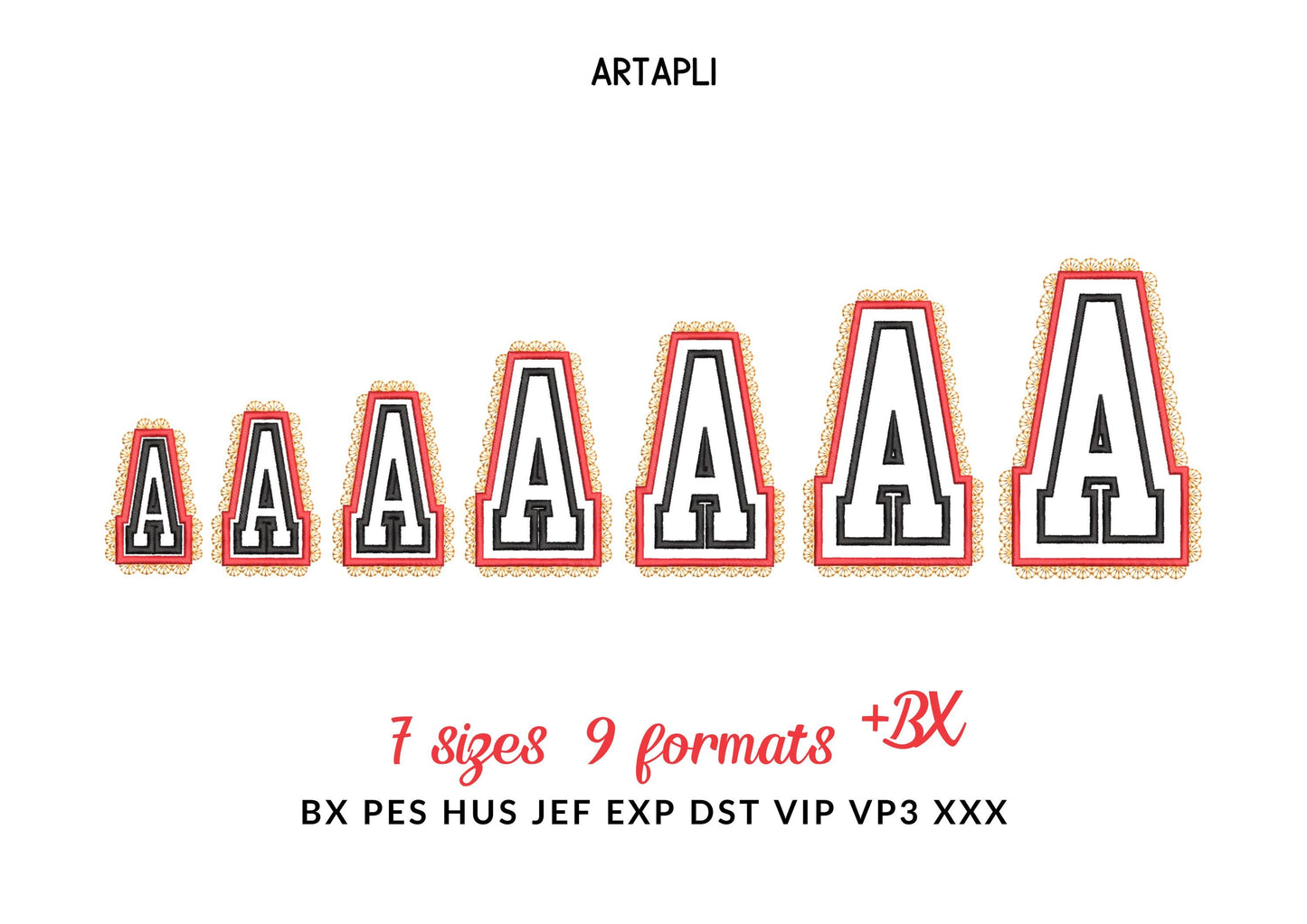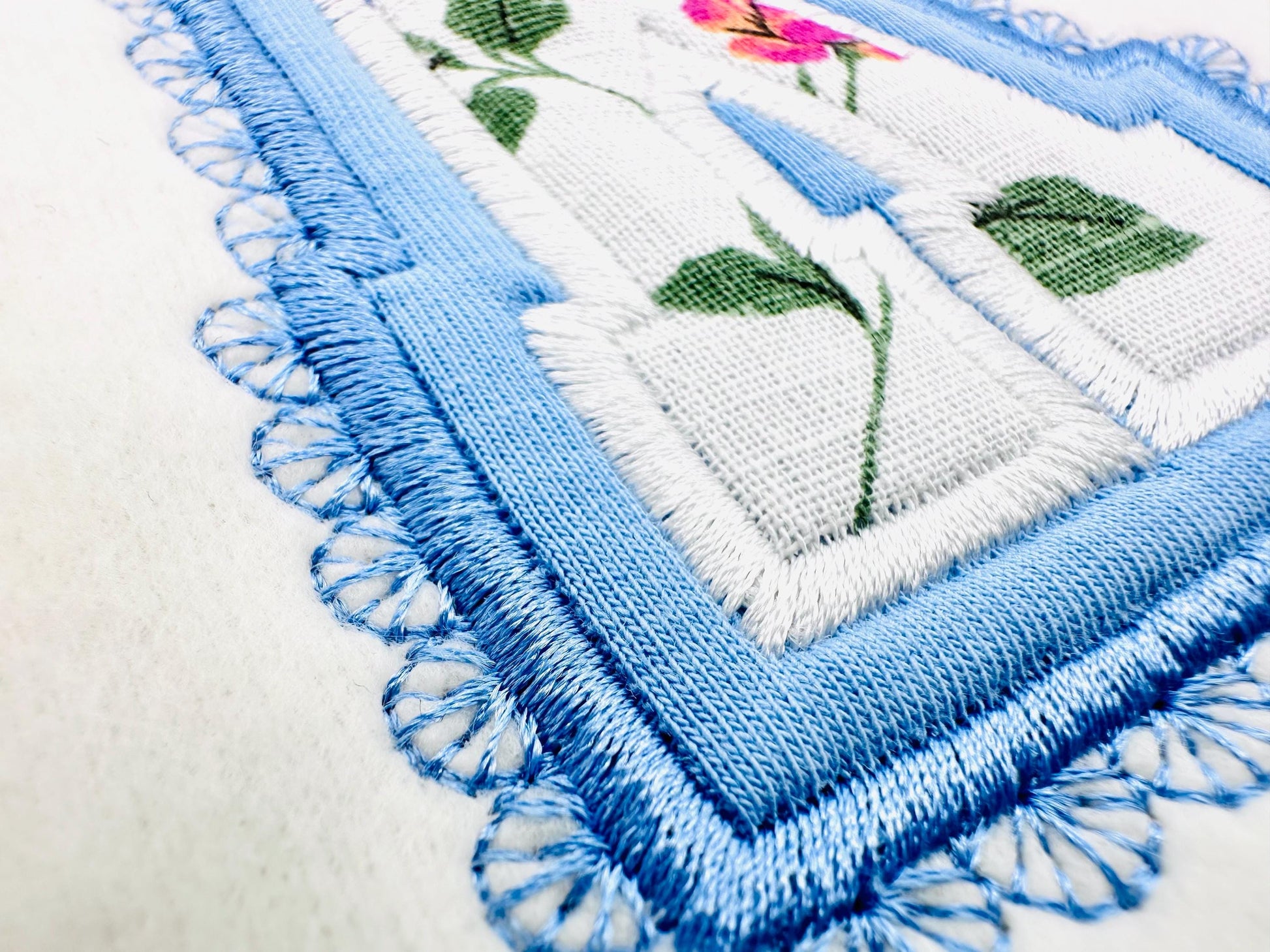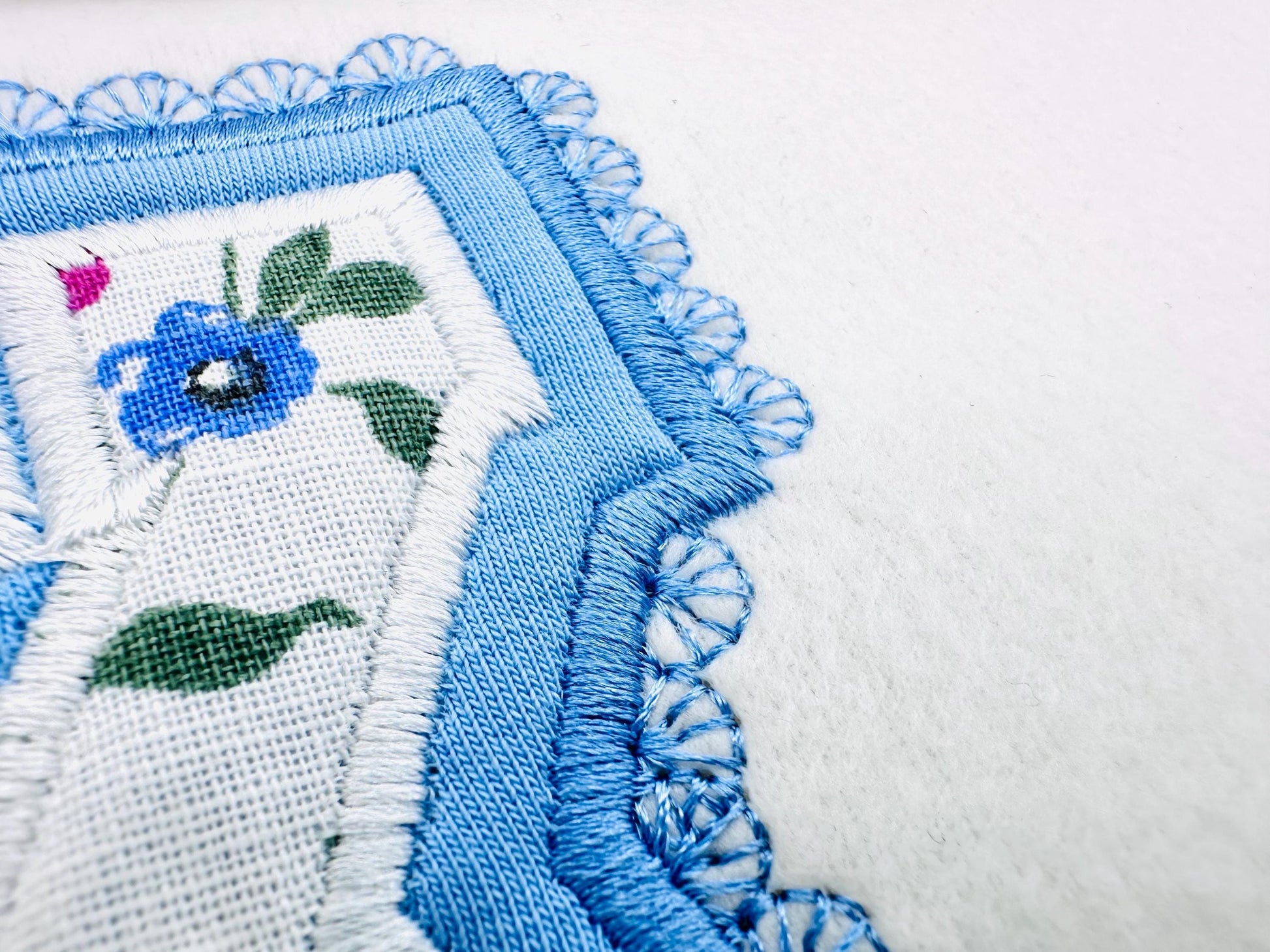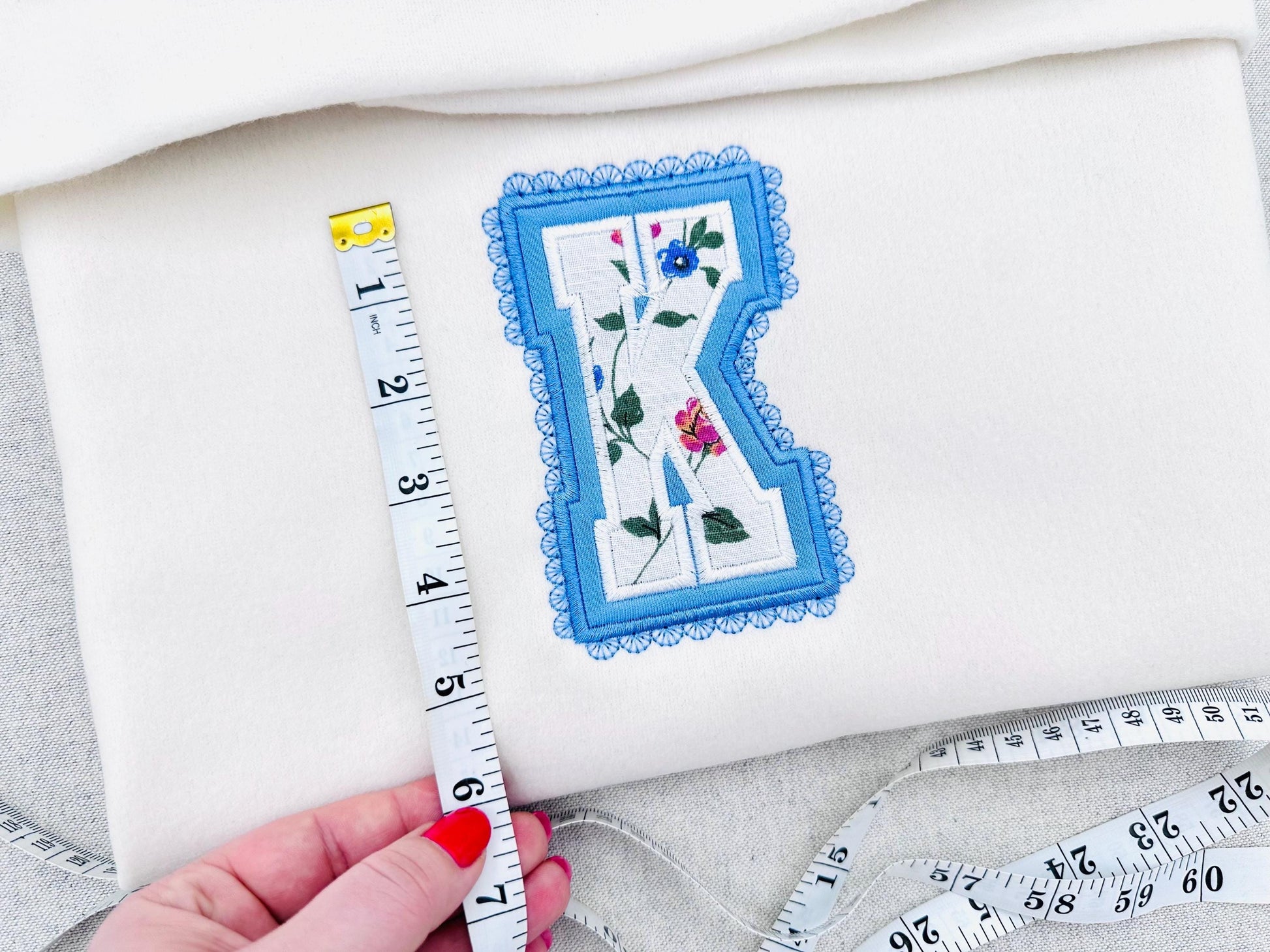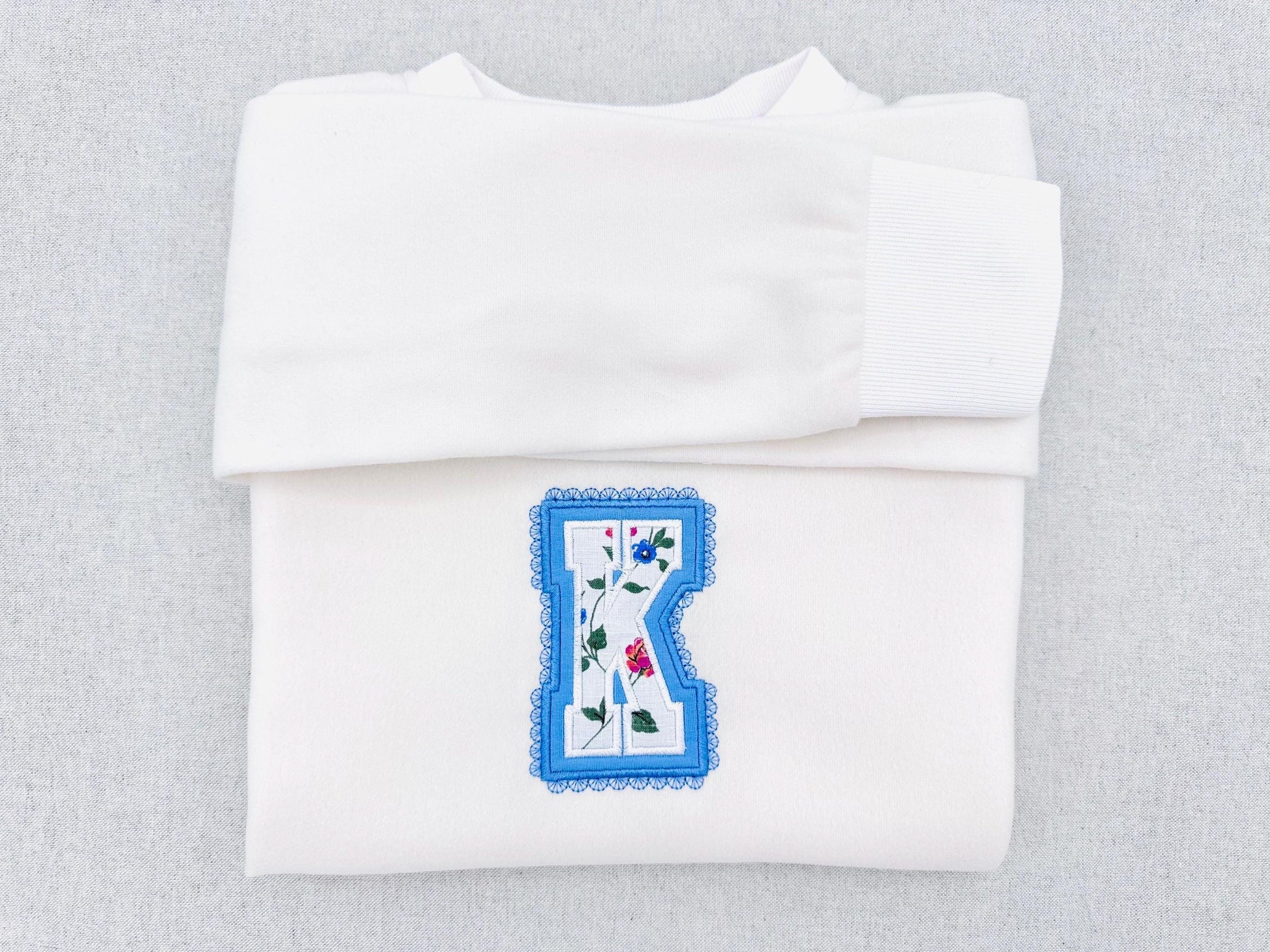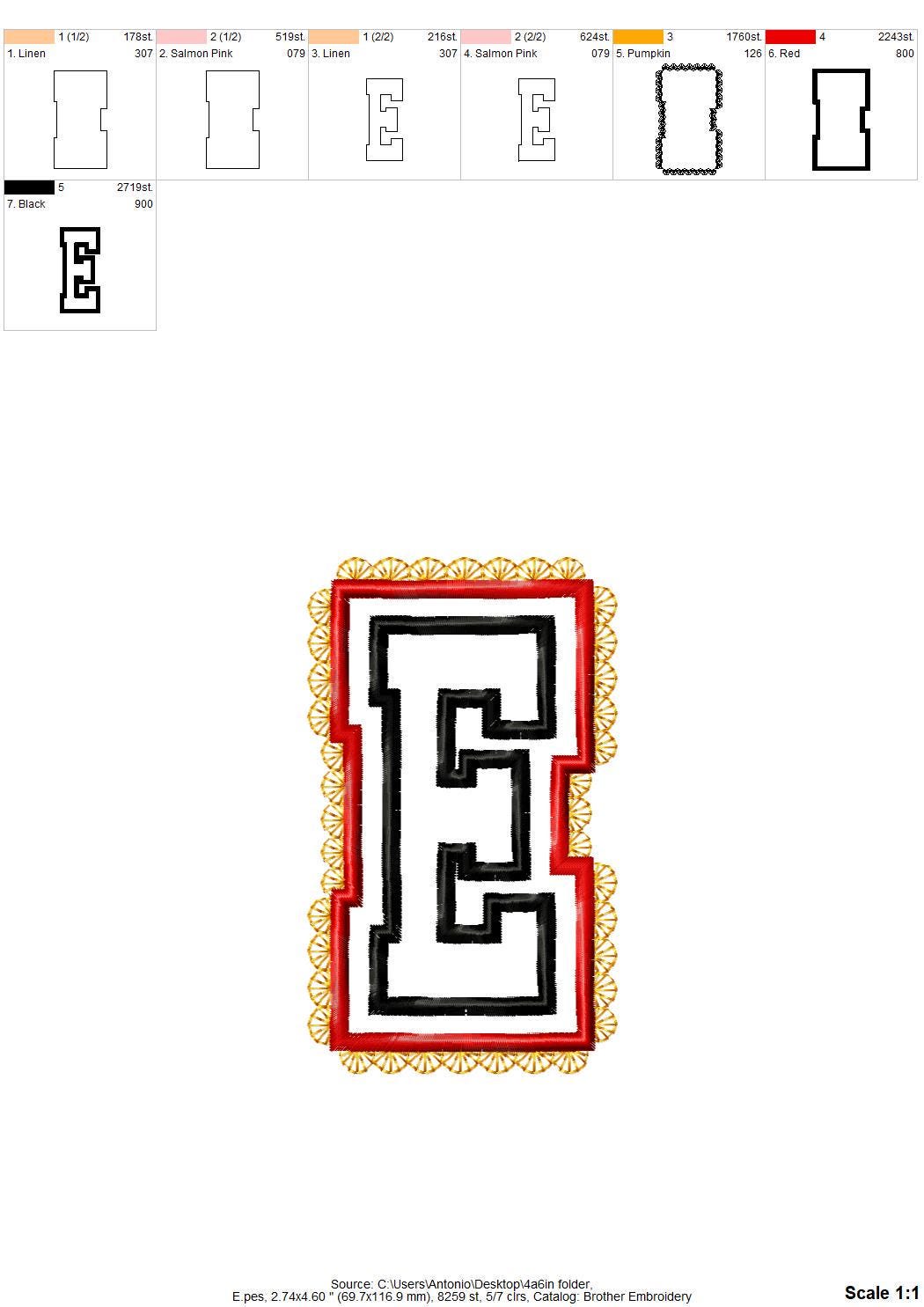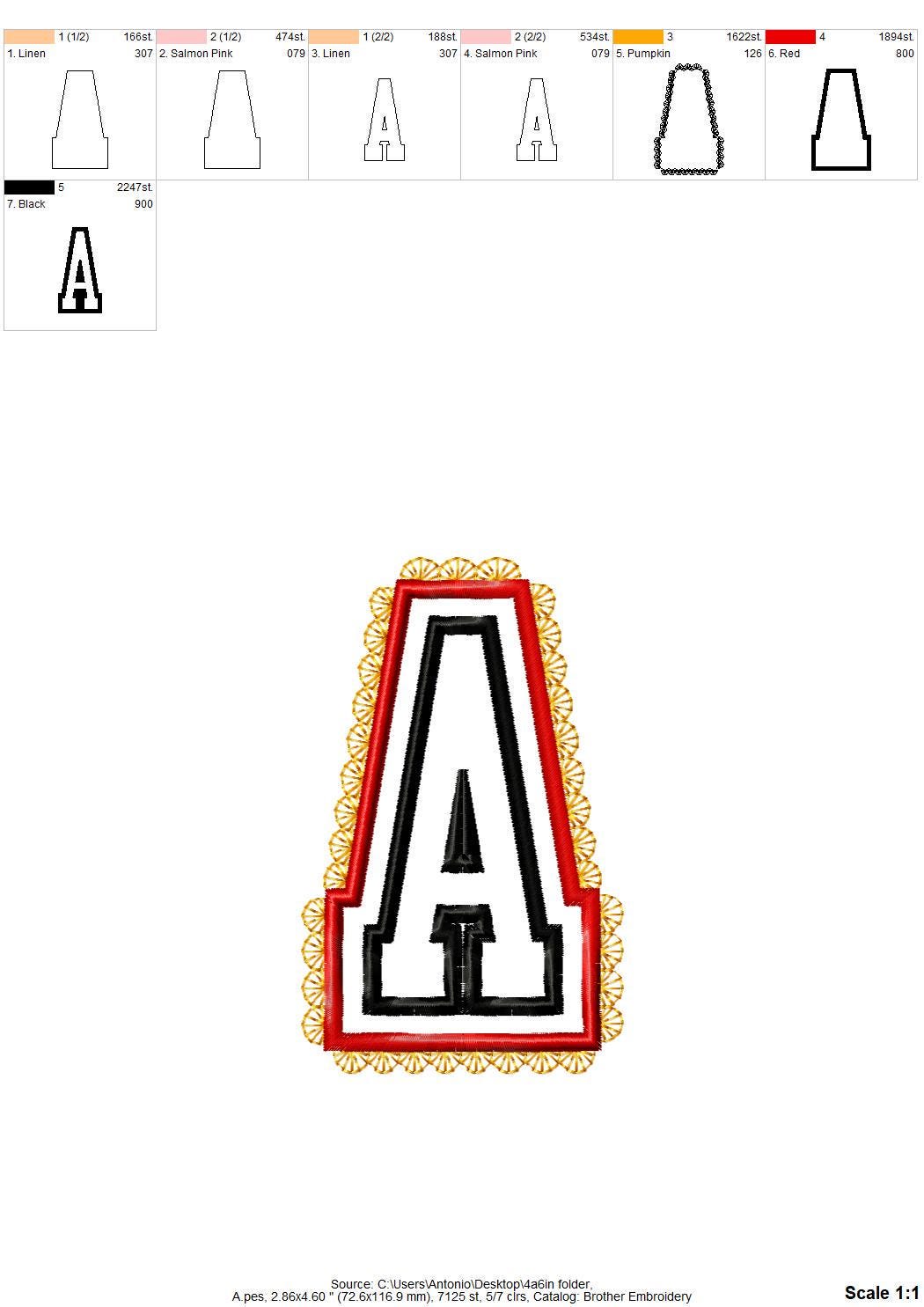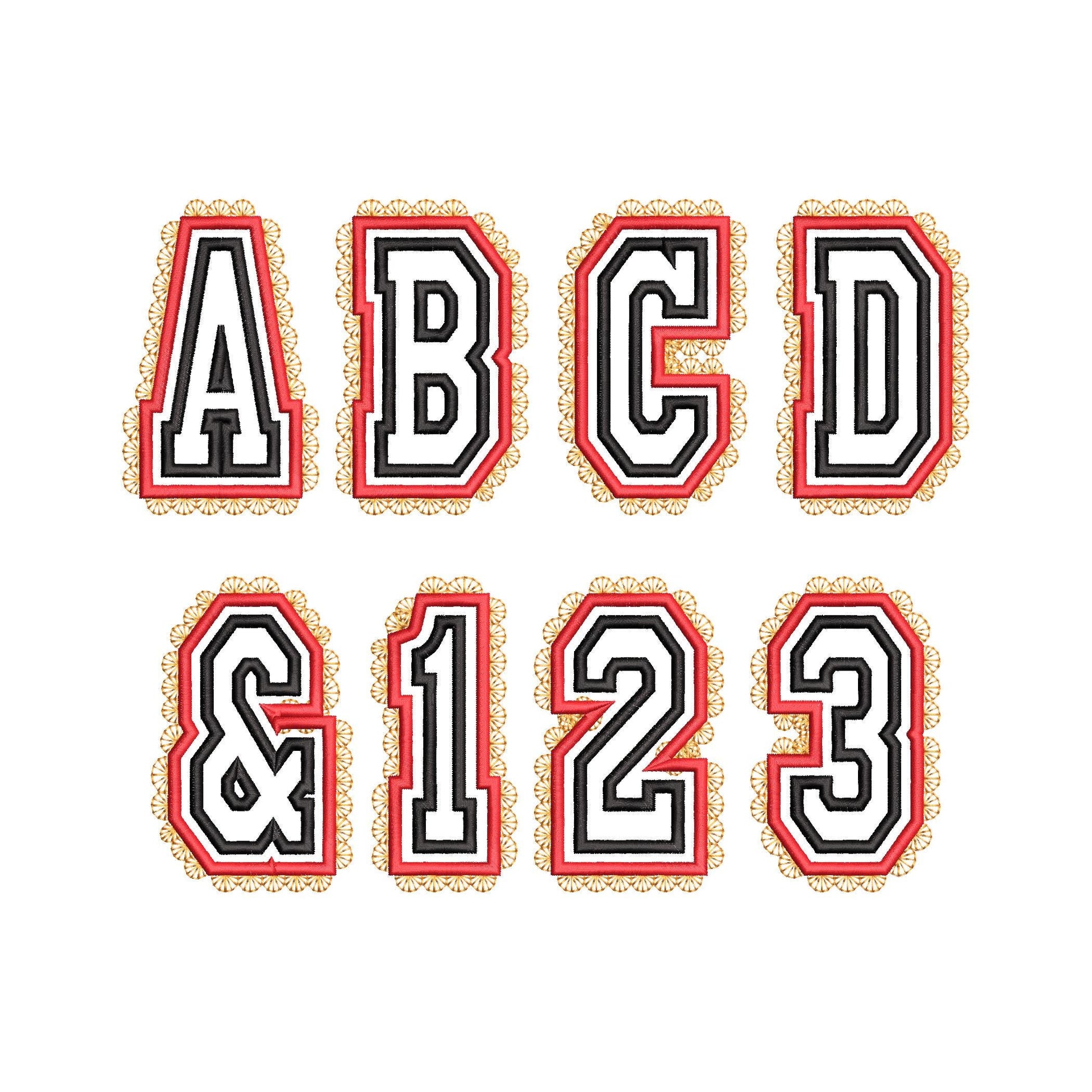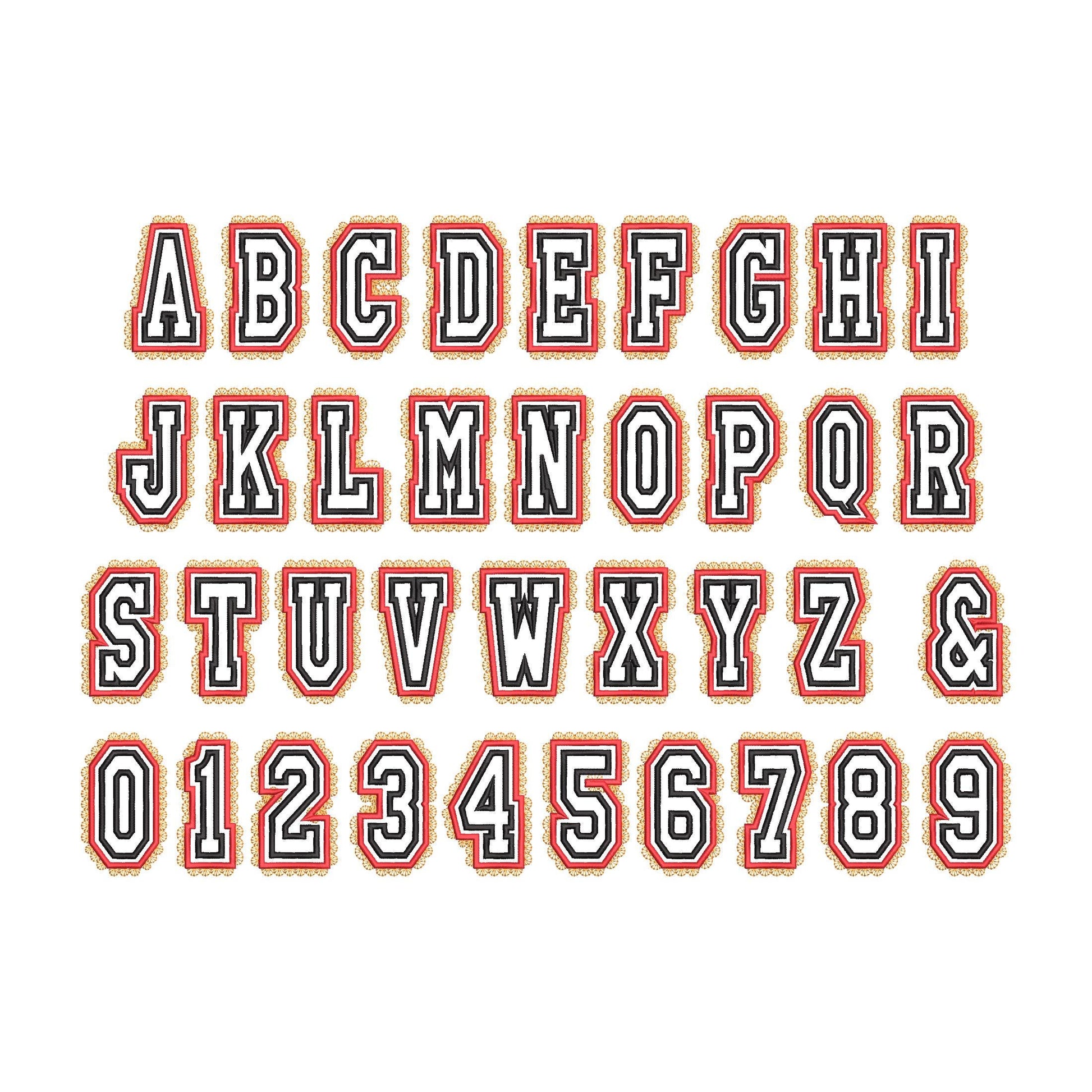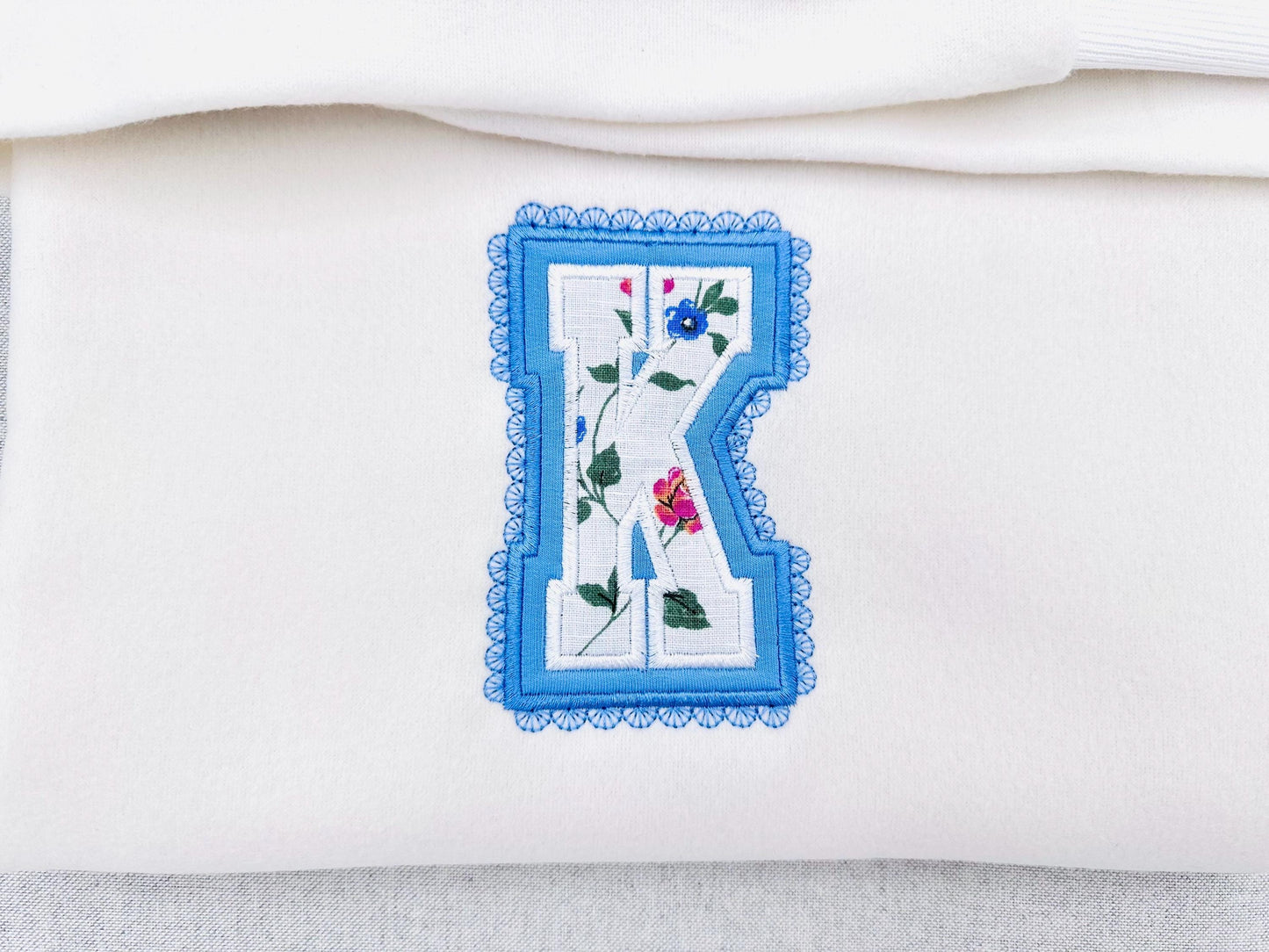
Or click to open the linkA sports block font in two applique layers with a lace edge. Sweet for girls' team shirts, names and monograms.
The letters come in seven sizes: 3, 3.4, 3.8, 4.6, 5, 5.6 and 6.3 inches. Two applique layers with a lace edge around them; the fabric shows through the lace. Includes uppercase letters A to Z, numbers 0 to 9 and an ampersand.